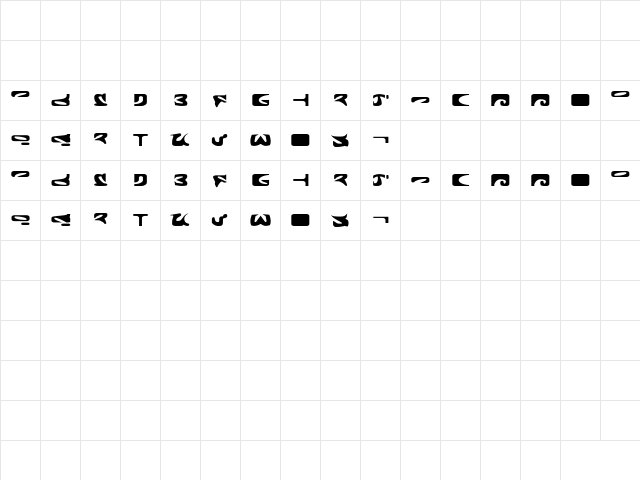
Romulus Ex Plain
Design Context for Romulus Ex Typeface
Romulus Ex is a composed and adaptable typeface that performs quietly and consistently across a wide range of design contexts.